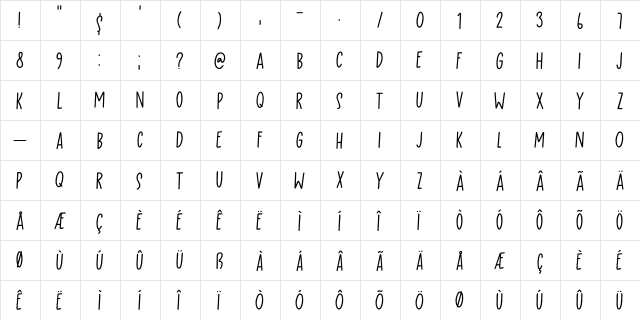
Rearview Mirror DEMO Regular
| Foundry | David Kerkhoff |
| Designer | David Kerkhoff |
Design Context for Rearview Mirror DEMO Typeface
Rearview Mirror DEMO takes a measured approach to typography — its balanced proportions and neutral character make it a reliable workhorse for both digital and print work.